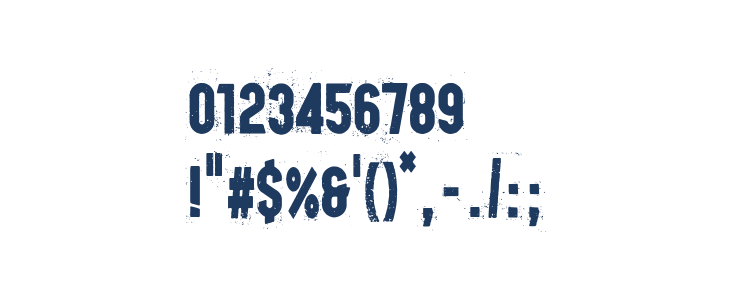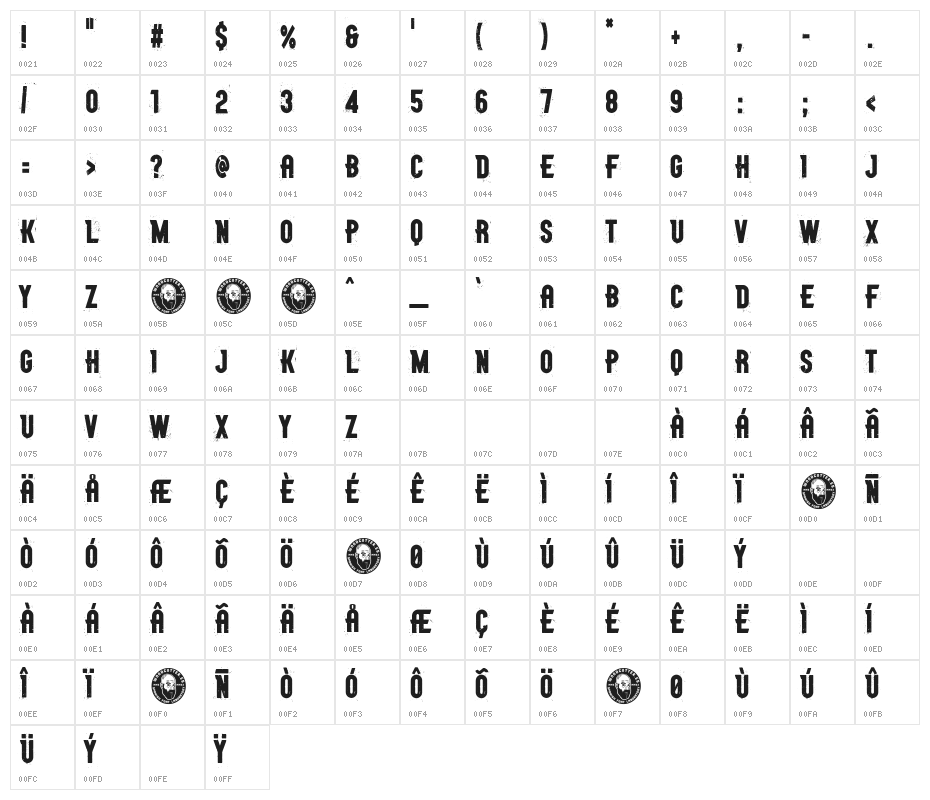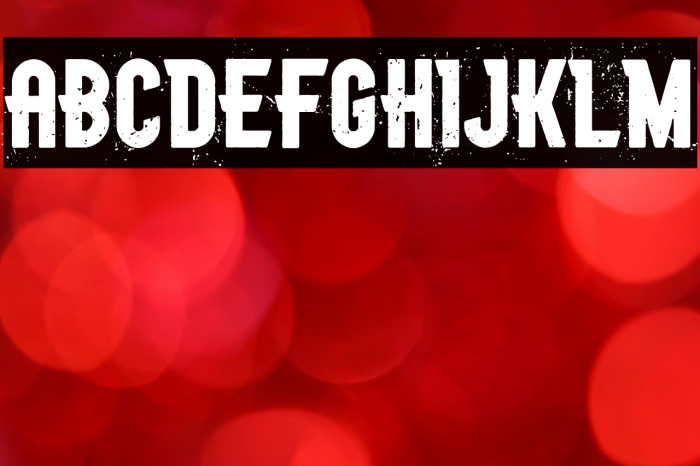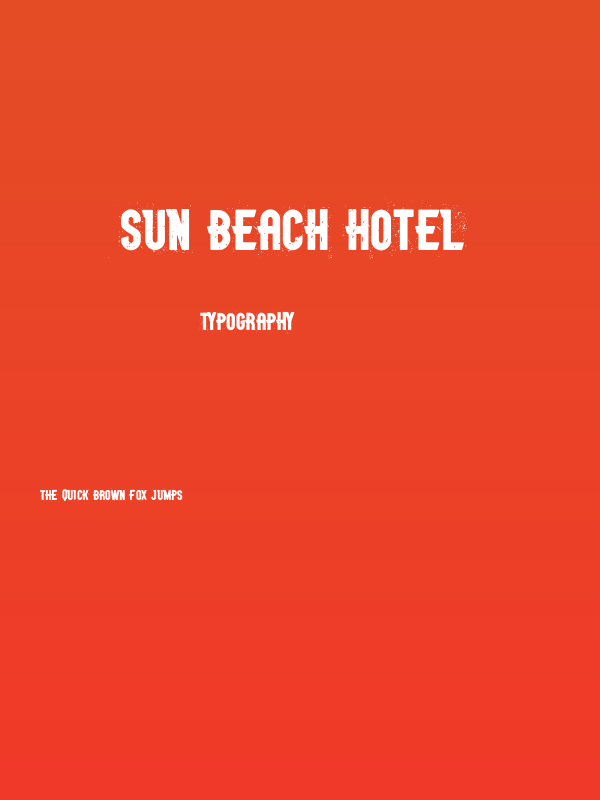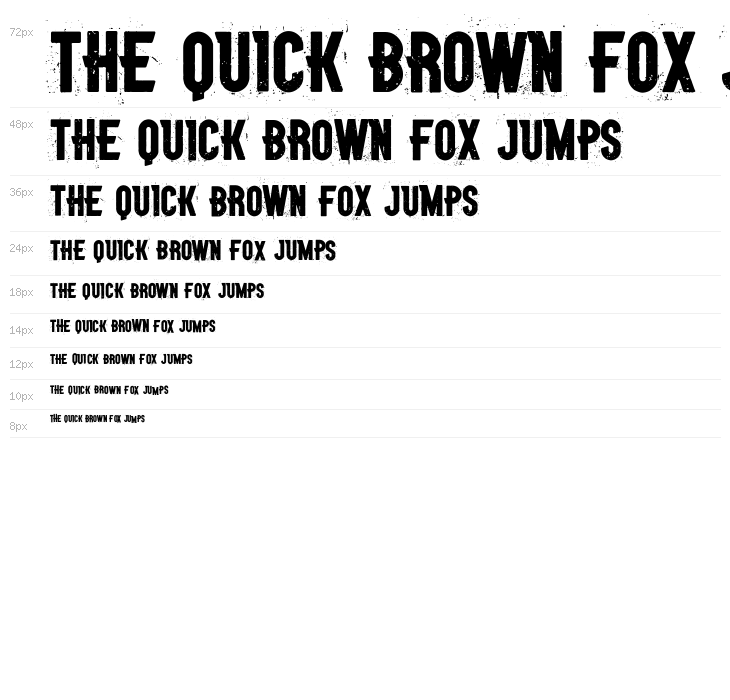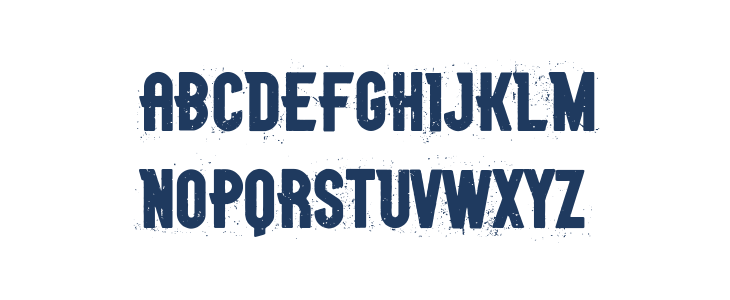
Sun Beach Hotel Font
Sun Beach Hotel Description
This font features a bold and distressed style, giving it a rugged and vintage appearance. The characters are blocky and robust, with a textured effect that suggests wear and tear, reminiscent of old signage or print. The uppercase letters are prominent, with a consistent height and width, while the numbers and special characters maintain the same distressed aesthetic. This font's unique style makes it stand out, ideal for projects that require a strong, impactful visual presence.
| Proposed Projects | Ideal for vintage-themed posters, branding for outdoor or adventure products, and bold headlines in magazines or advertisements. |